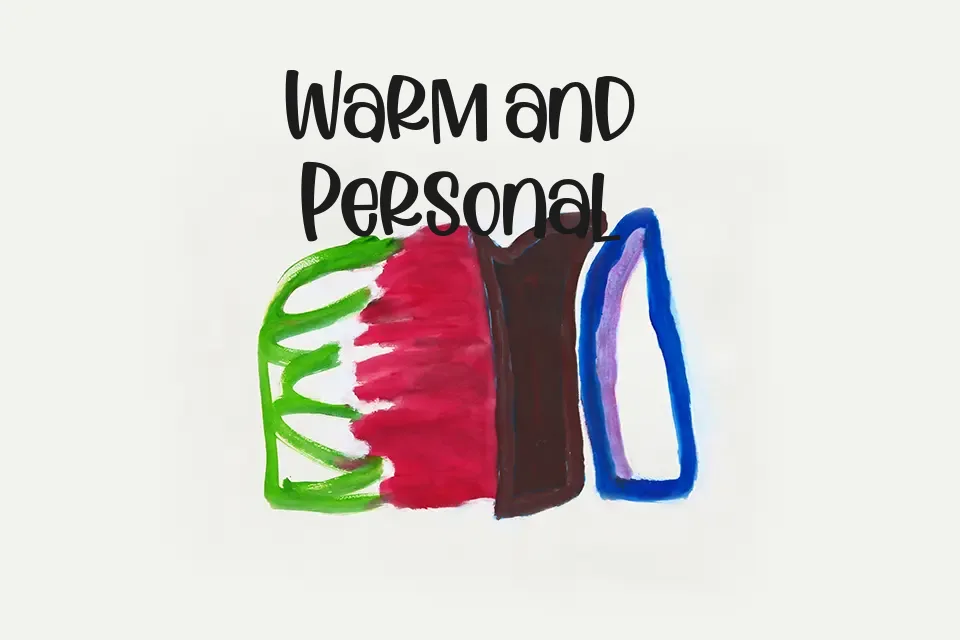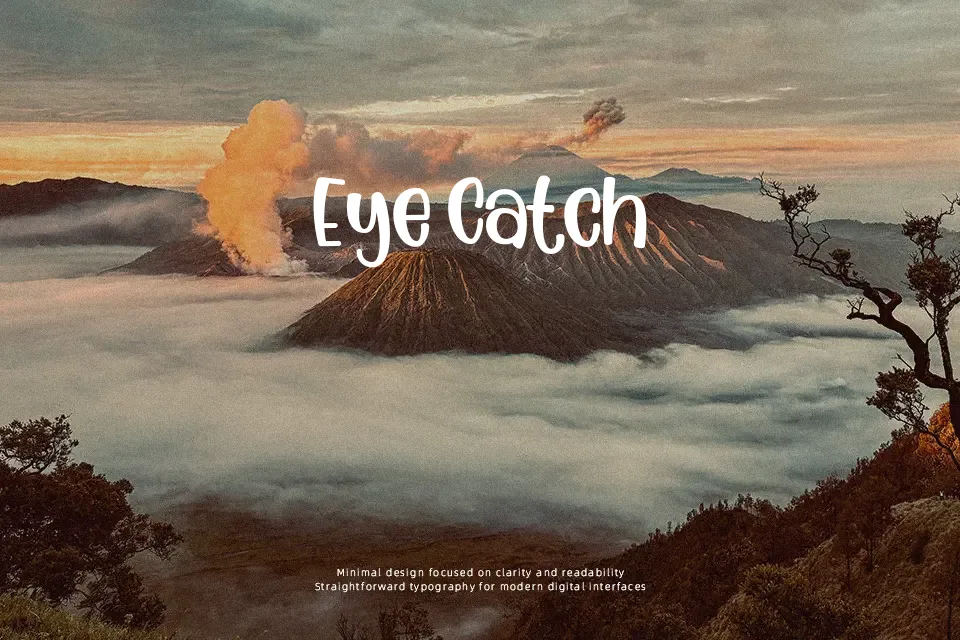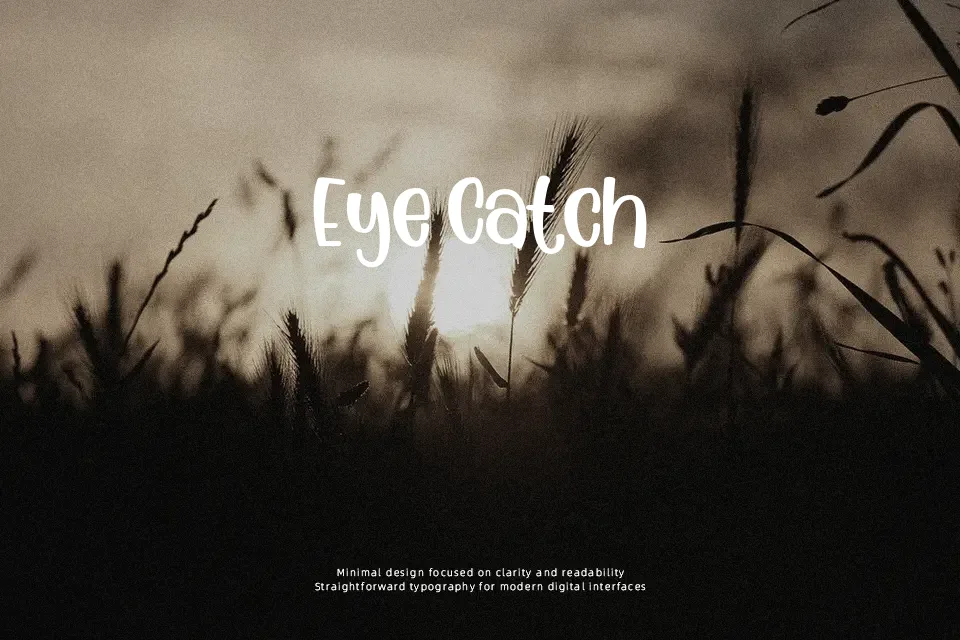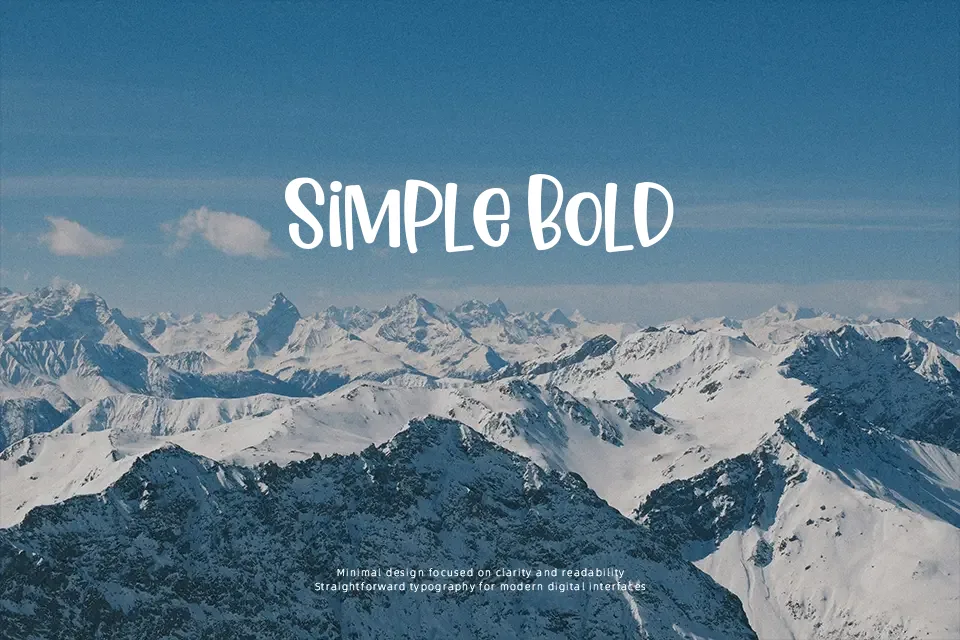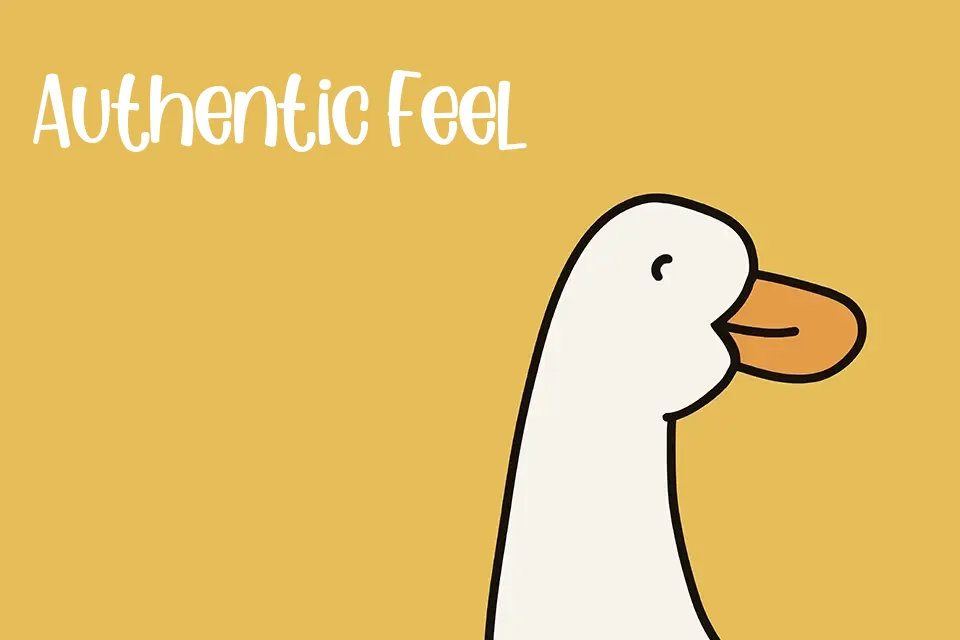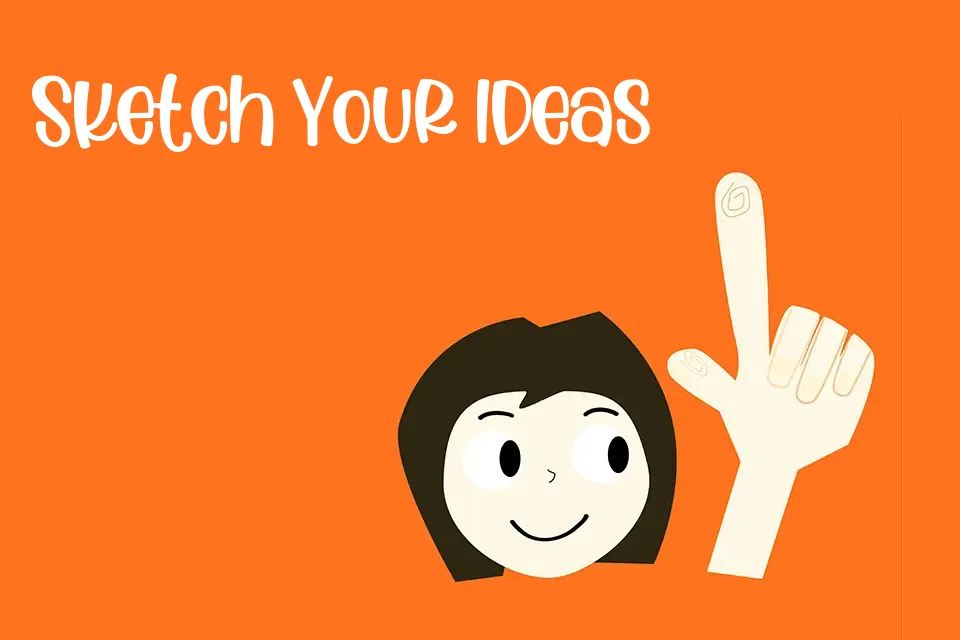
Anak Sultan Font
Designed by Gilar Studio
There’s a lively, almost storybook quality to Anak Sultan—its strokes carry visible pen weight variation, loose letterforms, and a bouncy baseline rhythm that feels drawn rather than typed. The cartoon-leaning style sits comfortably in children’s content, merchandise labels, and informal branding where visual warmth matters more than precision. With 24 ligatures, alternate characters, and PUA encoding, designers have real flexibility when working in OpenType-capable software. The three-style family—Regular, Outline, and Shadow—lets you layer and mix for added depth in poster or packaging work. That said, the free dafont release is a single-style personal-use version; anyone needing commercial rights or the full trio must purchase separately. Tight body copy is where this font falls apart fastest.
– Children’s book cover titles and chapter headers
– Craft merchandise and handmade product packaging
– Playful social media quote graphics
– Informal event poster headlines
– Long-form body text or editorial layouts
– Corporate identity or professional business documents
– Contexts requiring neutral or authoritative tone
– Small-size UI labels where legibility is critical
Perfect for branding, invitation, and kids, with a creative and cartoon style.